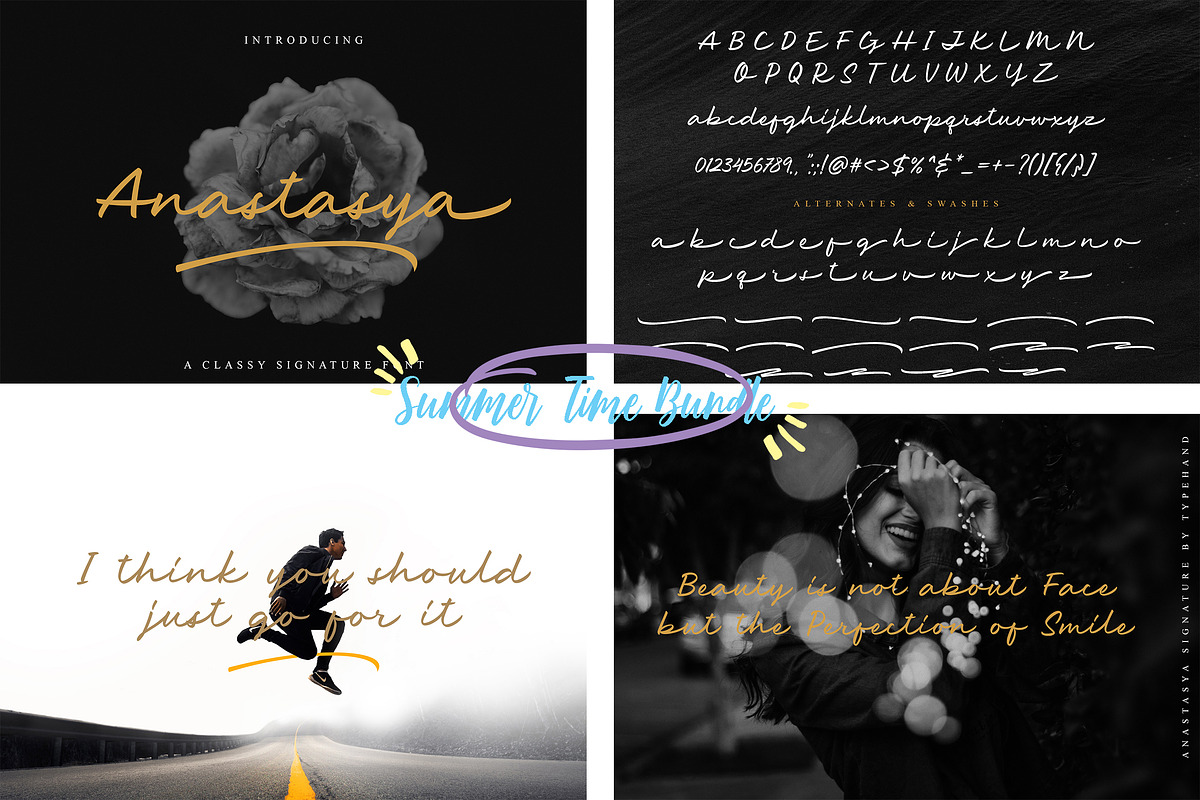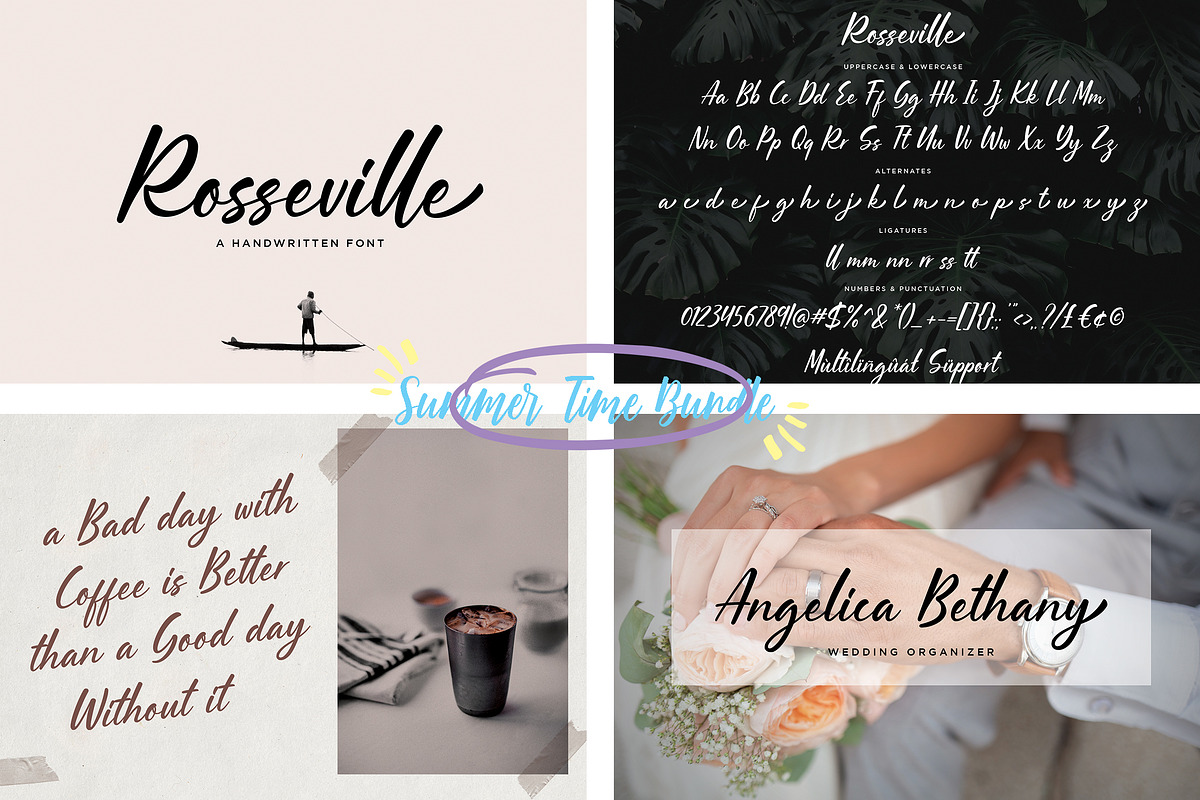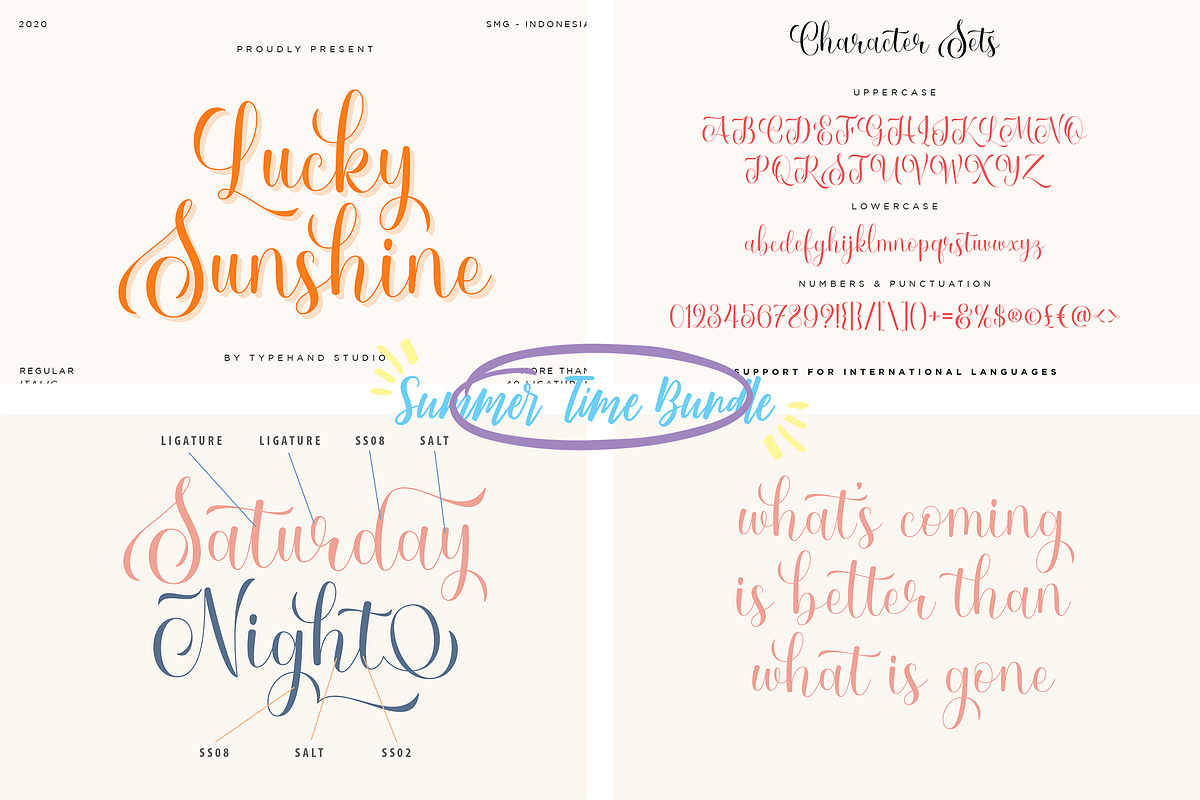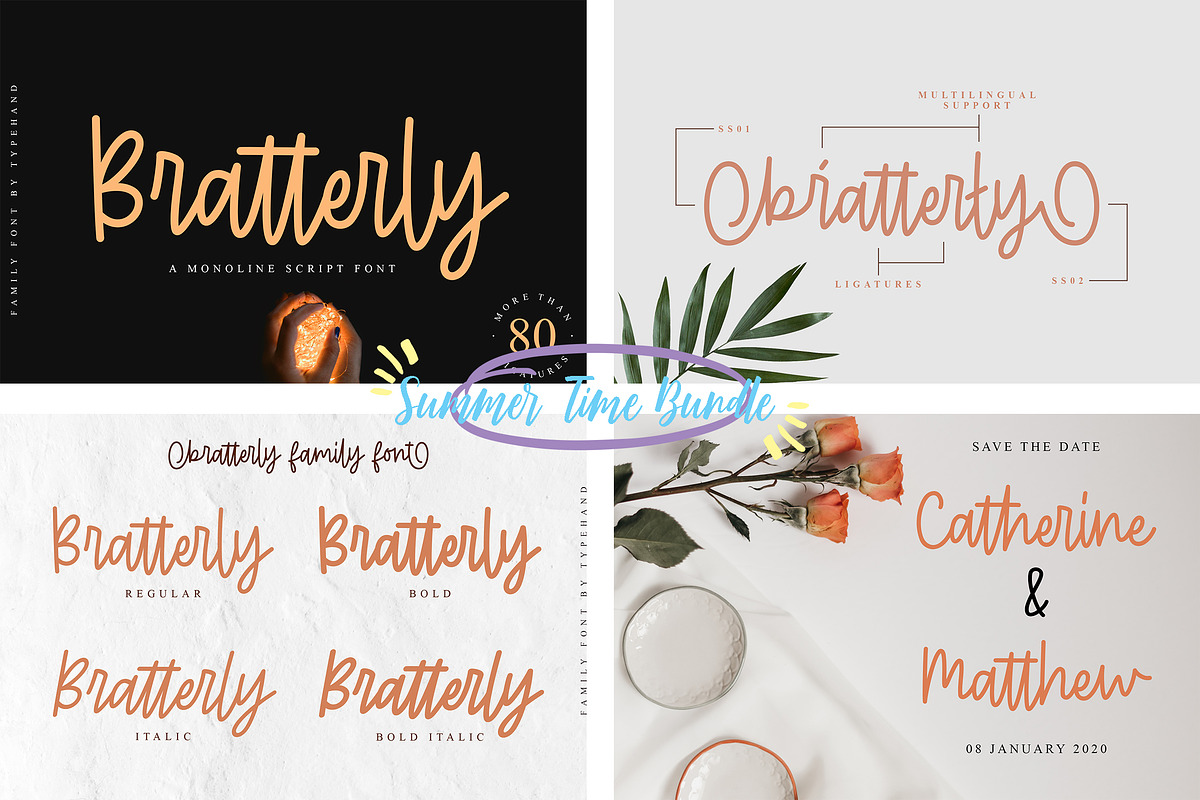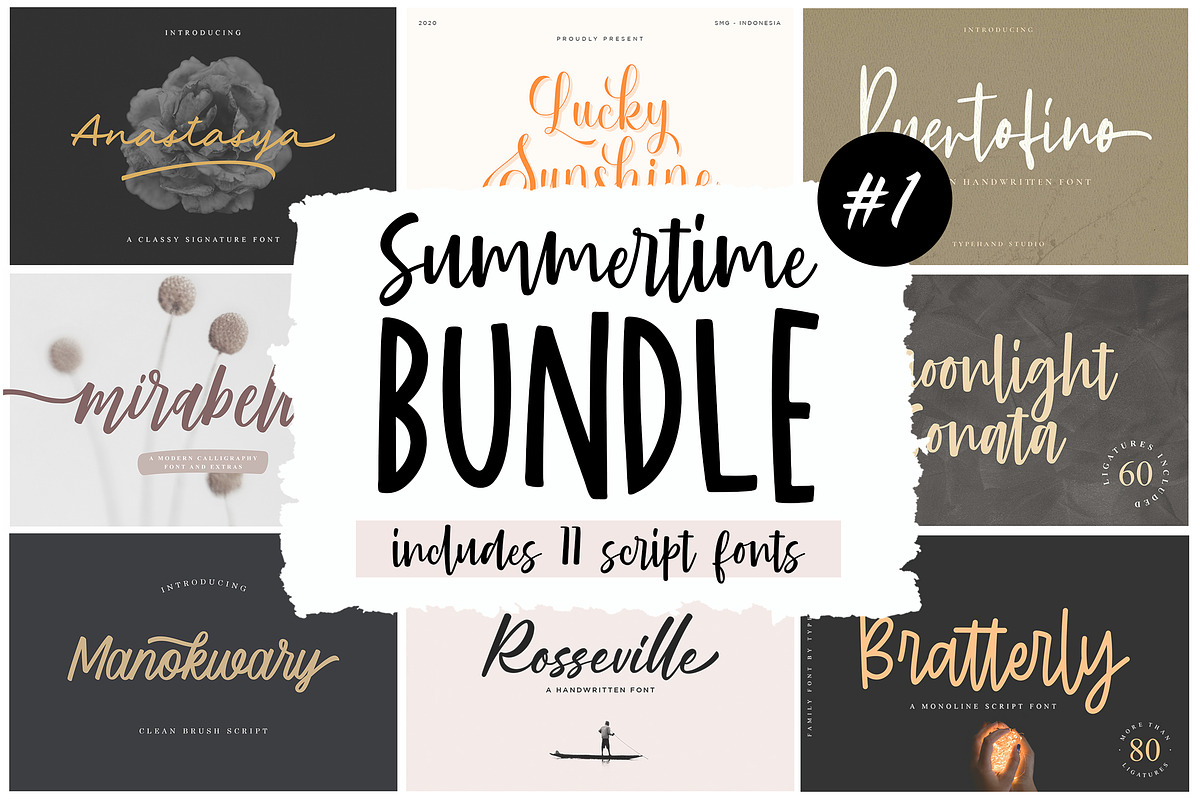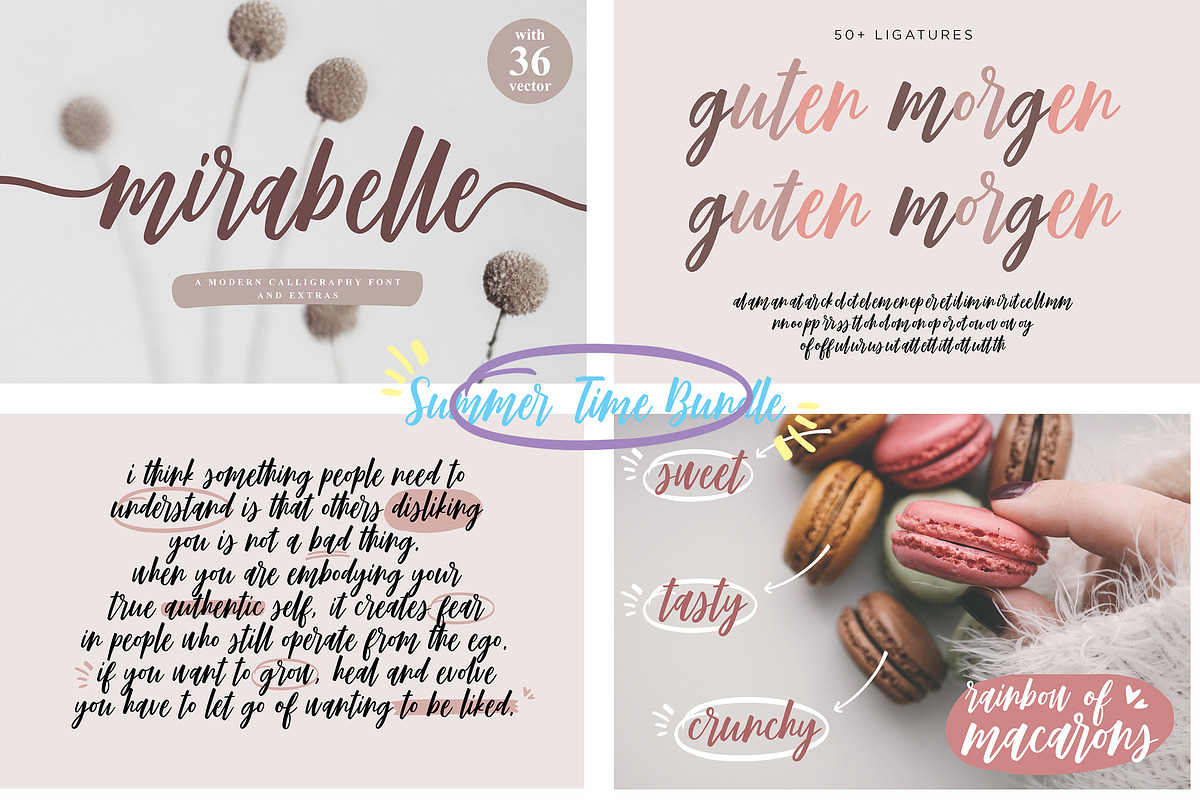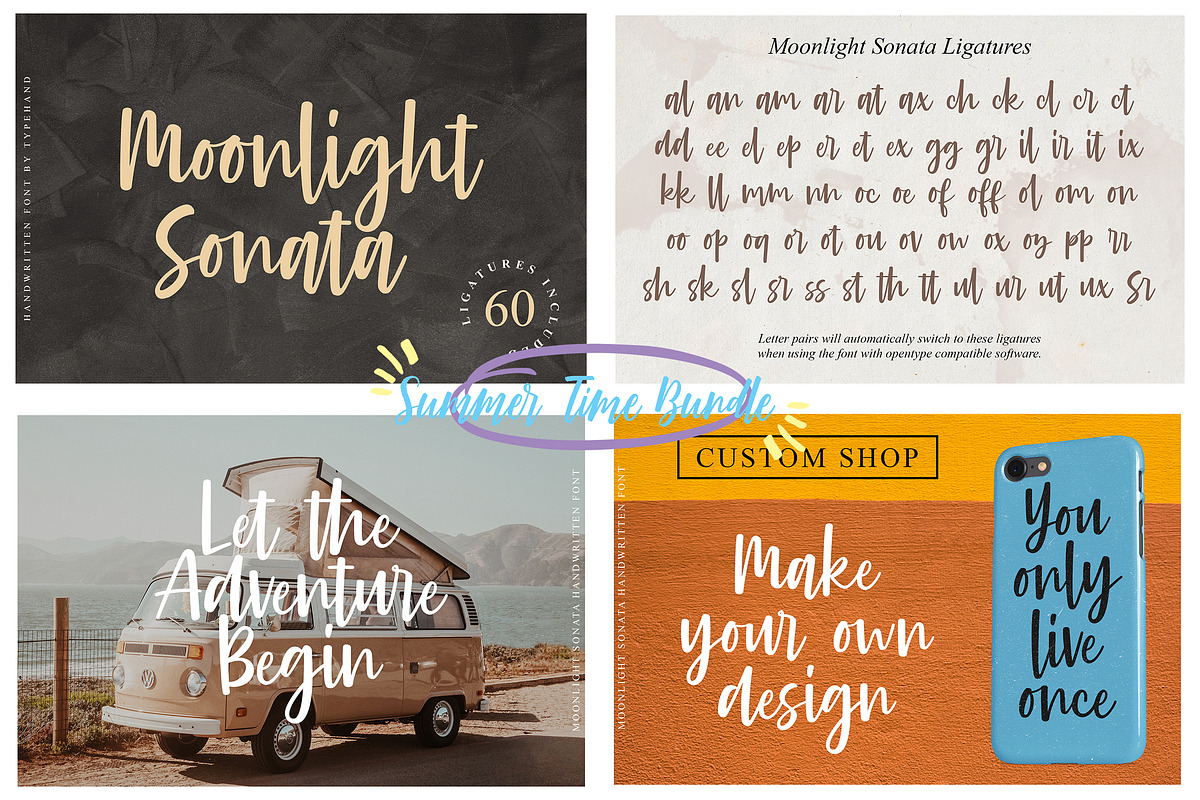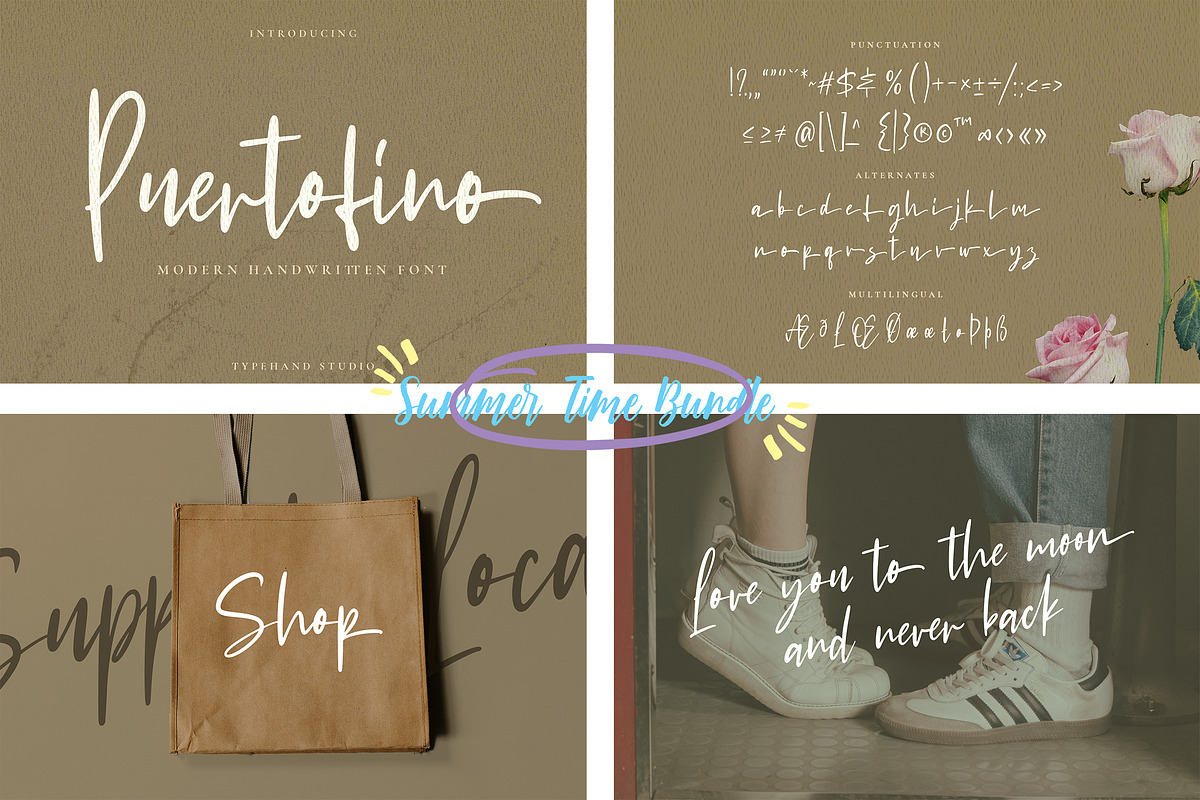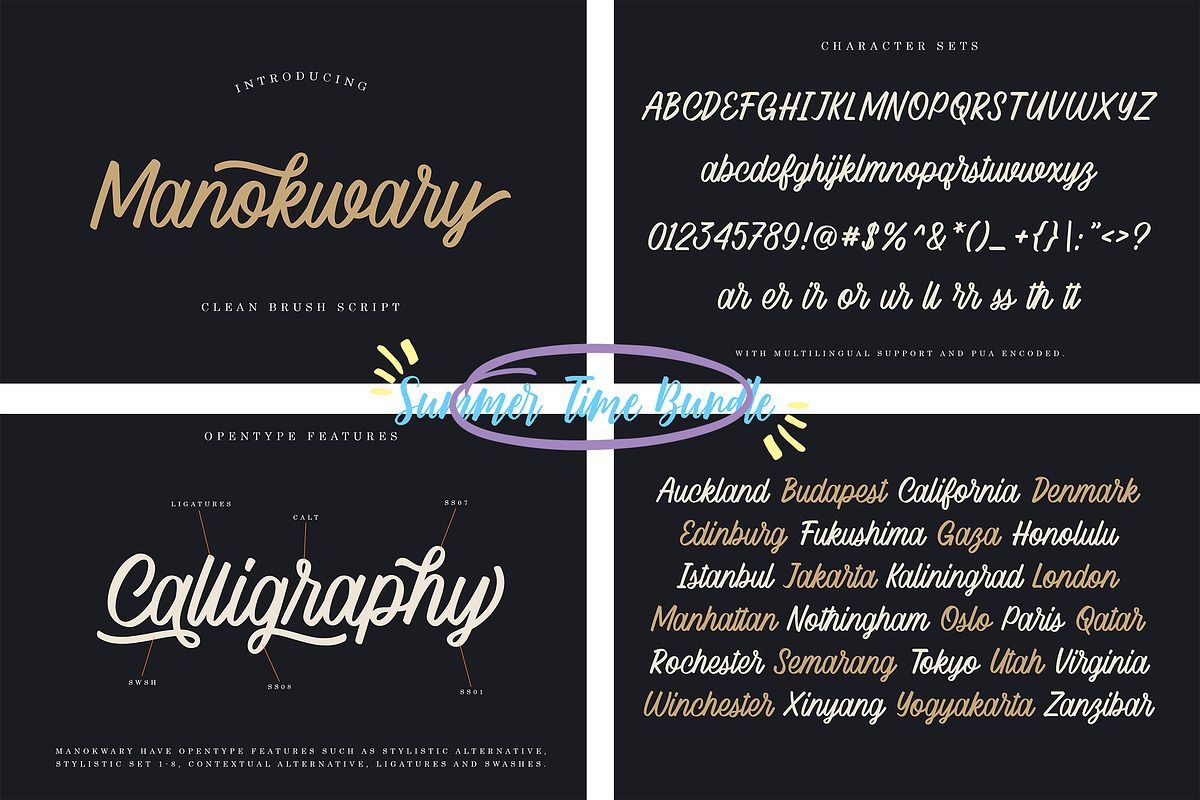
Summer Time Bundle - Script Bundle
Introducing the Summer Time Bundle, a curated collection of exquisite script fonts that exude timeless beauty and sophistication. This carefully crafted bundle brings together a variety of stunning script typefaces, each meticulously designed to elevate your projects to new heights of elegance and charm.
Whether you're working on invitations, wedding stationery, branding, logos, or any creative endeavor that calls for a touch of refinement, the Summer Time Bundle font bundle has got you covered. With its diverse range of script styles, from flowing and graceful to bold and expressive, this bundle offers versatility and flexibility for all your design needs.
FONTS INCLUDED